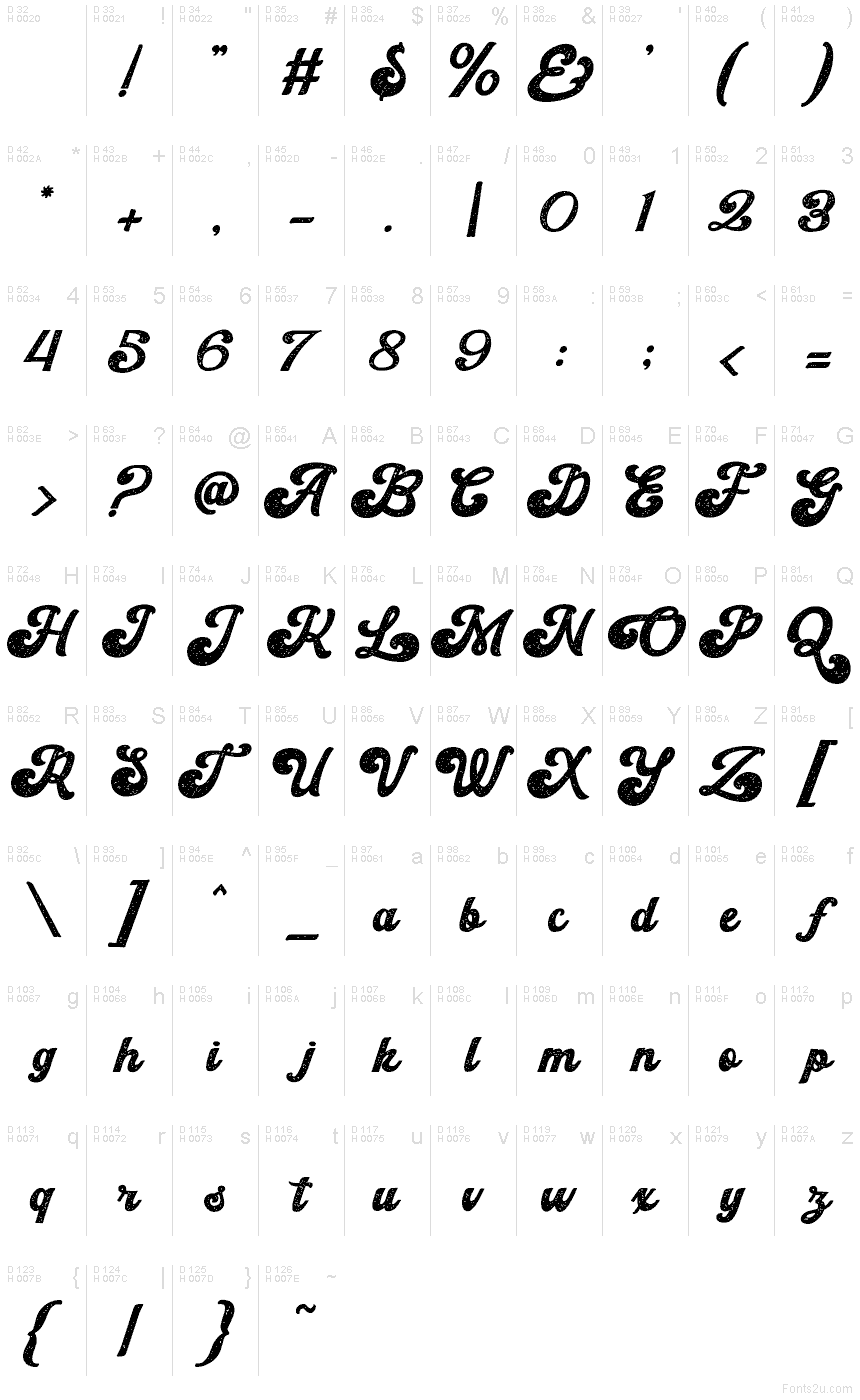
Huron Texture
Huron Texture font by PutraCetol Studio is a free brush display font inspired by casual elegance with a slightly eroded and roughed-up texture. The bold vintage-style characters give a nod to the dynamic typography of the 80s, while imbuing it with modern characteristics that elevate any innovative project. With its strong signature-like quality, Huron evokes nostalgia in a distinctive way.
This bold free textured font can be used to create technology-related designs, gym designs, movie titles, and posters. It is also excellent for retro posters and social media content. Brands can use this display typeface in branding visuals or packaging labels whether physical or digital.